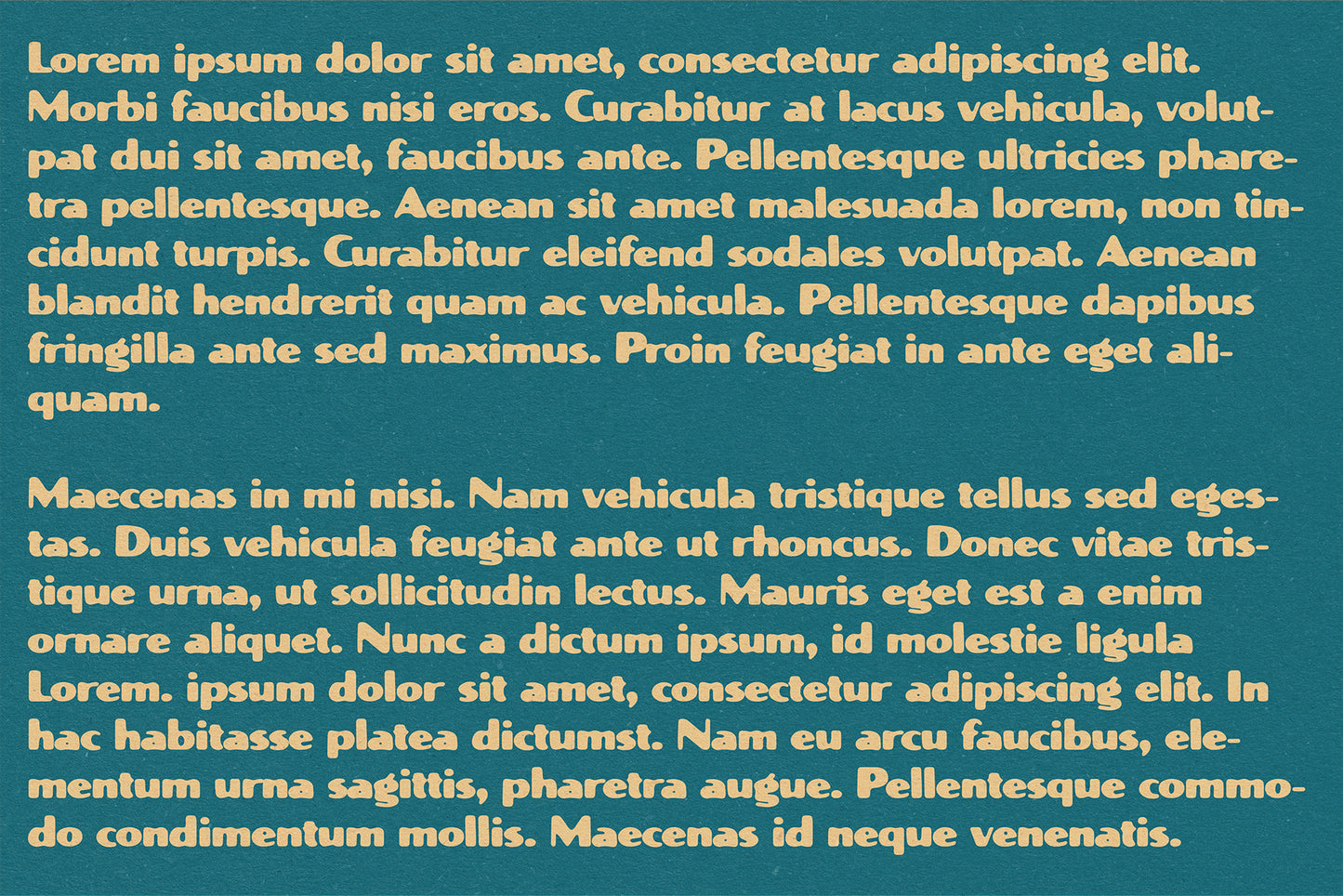
Vicente Typeface
I made Vicente after looking back at photos from a trip to Madeira, one of my favourite places in the world. I wanted to make something laid-back but perfectly formed, with a relaxed, handmade feel. This font was made by embracing the imperfections in the hand-lettering process, and is probably my favourite one I've made to date. It's perfect for projects that have an effortless style, and embody the slow-paced way of life.